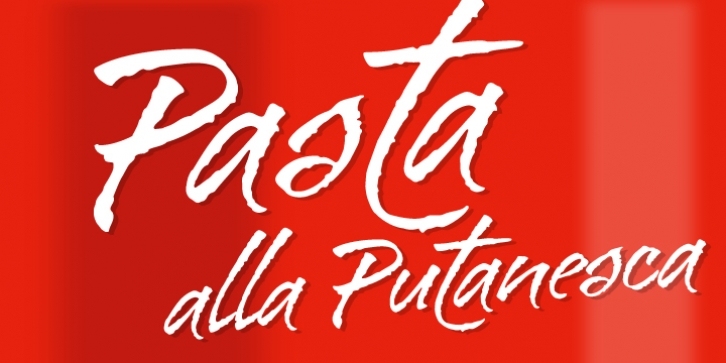
Bravissima is the dynamic and spirited embodiment of the 1970s, when food was food and the wild brush ruled. It tells you to eat, and to do it right now. Another perfect blend of traditional Koziupa calligraphy and Paul tech, spiced up with OpenType features like the meal of your dreams. A personal favorite for food packaging design, especially hot stuff.